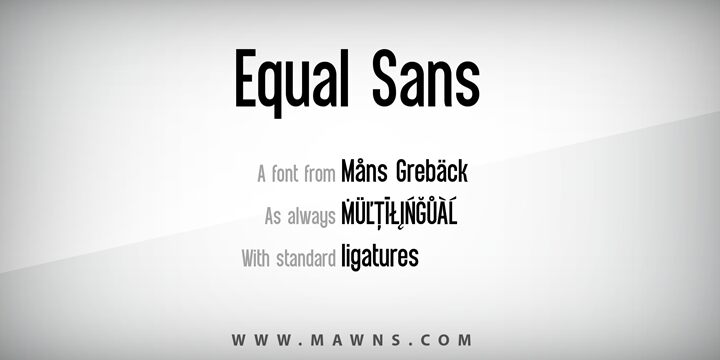
Equal Sans by Måns Grebäck is a free condensed sans serif. Its extremely tall letters shift between broad vertical strokes and hairline-thin joins, creating a sharp, fashion-led silhouette.
As an assertive editorial title, it brings the scale and drama of masthead lettering to magazine covers and fashion campaigns, with the compressed width making oversized wording feel tense and deliberate. The narrow proportions also suit music posters and event signage, where long names take on an emphatic, architectural shape. For a clothing label or cosmetics line, the severe stroke changes can become a recognizable brand signature rather than ordinary product lettering.